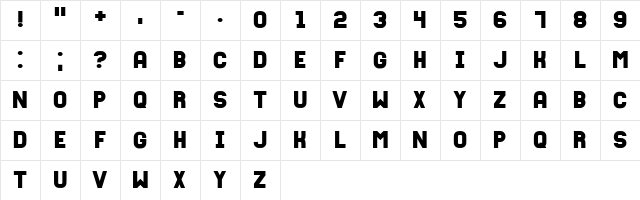
Complete Fixation Regular glyph index. Displaying only characters natively supported by Fixation Regular font.
Fixation is a composed and adaptable typeface that performs quietly and consistently across a wide range of design contexts.